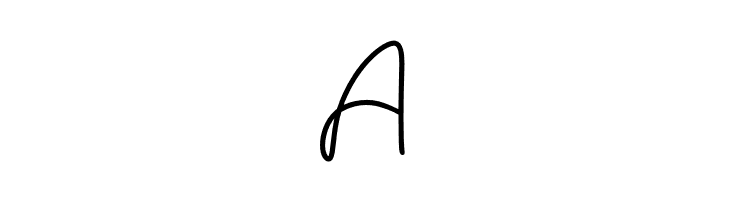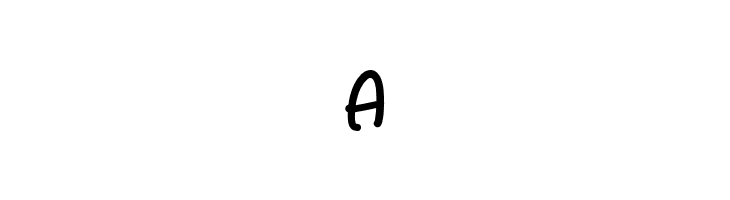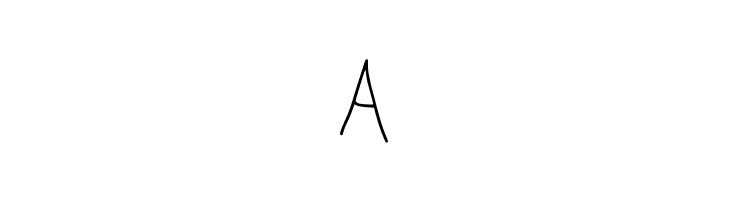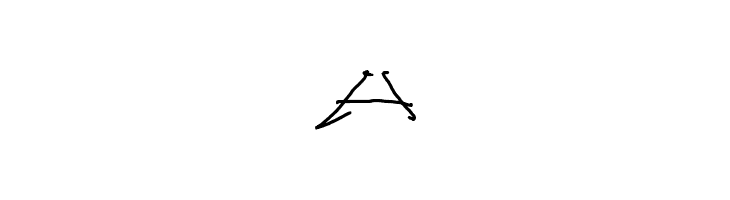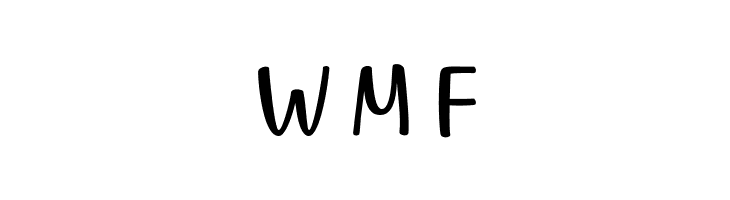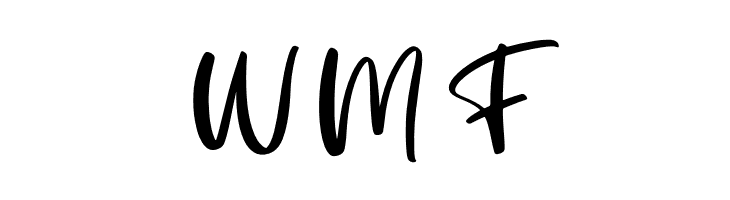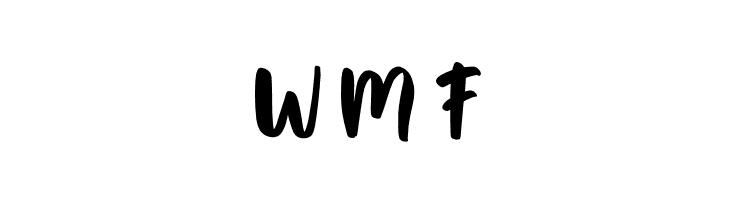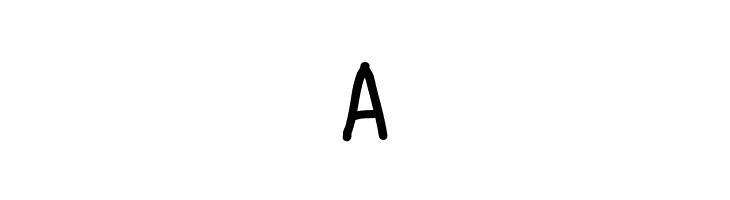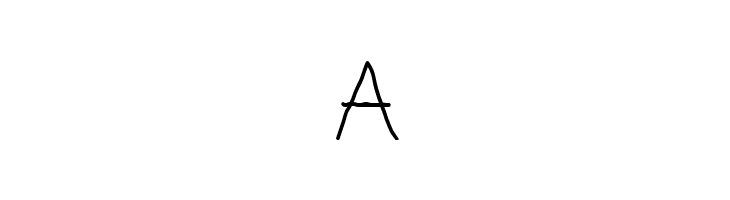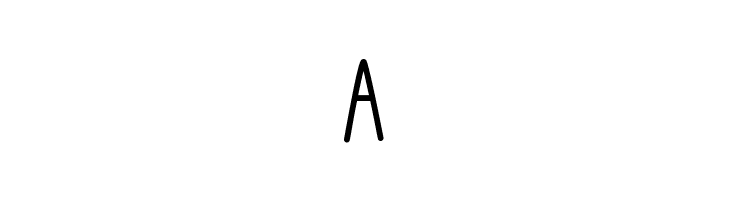
A graceful and flowing script font with elegant, elongated letterforms.
Expressive handwritten script font.
Casual, handwritten sans-serif with rounded forms.
Casual handwritten script with tall, narrow letters and playful energy.
Bold, hand-lettered script with casual, flowing strokes.
Bold, casual brush script with a hand-painted feel.
A fluid, handwritten style with elegant, flowing strokes.
A playful, hand-drawn font with rounded, uniform strokes and a whimsical touch.
An elegant, cursive script font with flowing, graceful strokes.
A fluid, handwritten-style font with an organic and personal touch.
A fluid, elegant handwritten style with dynamic, connected characters.
A tall, narrow font with a geometric and modern style.
Elegant decorative script font.
A playful, handwritten font with smooth, flowing lines and a casual feel.
A fluid, cursive script font with a natural handwritten style.
Elegant cursive script with a handwritten style.
A playful, handwritten font with fluid, organic strokes and a casual feel.
Expressive handwritten script font.
A sophisticated, hand-drawn script font with fluid, connected characters and medium contrast.
A casual, handwritten font with a dynamic and personal touch.
A playful, casual handwritten font with fluid strokes.
A bold, expressive handwritten font with dynamic flourishes.